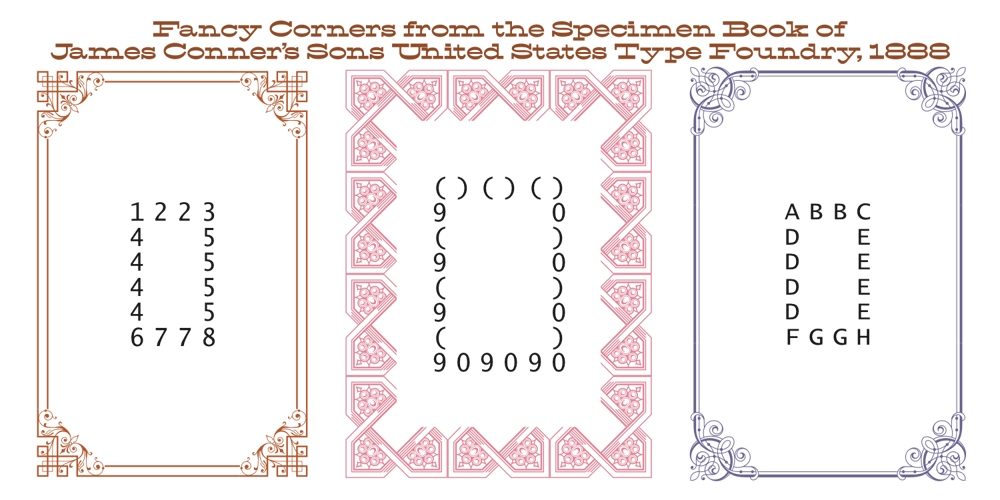
Conners Corners NF Font Family was designed by published by Nick’s Fonts. Conners Corners NF contains 1 styles and family package options. Here’s another collection of ornate border elements gleaned from the 1888 specimen books of James Conner’s Sons United States Type Foundry in New York City. Refer to the PDF guide for detailed, yet simple, instructions for constructing nine delightfully different border patterns.